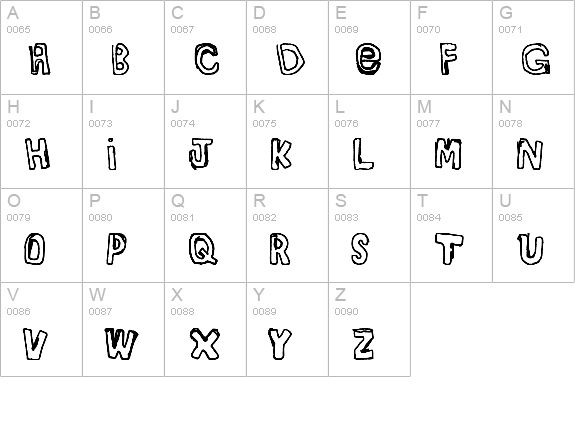
Introducing BULLY BOYS font, a bold and dynamic typeface that exudes strength and confidence. Inspired by vintage typography and street art, BULLY BOYS font features rugged edges and a commanding presence that demands attention. Perfect for headlines, posters, and branding projects, this versatile font is sure to make a powerful statement. The best part? BULLY BOYS font is available for free download at FontsMarket.com. Don't miss out on adding this impactful font to your collection today!